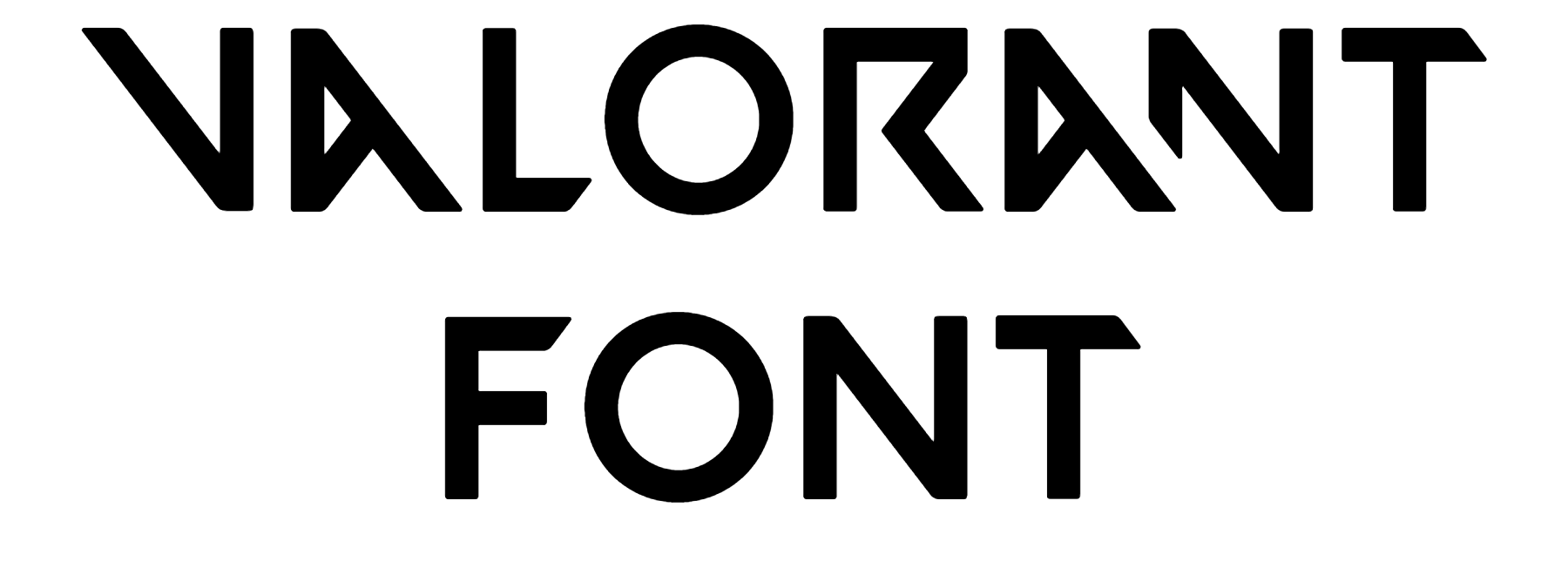
Valorant Font
Valorant
Valorant is a fancy font. It's a decorative display font with plenty of personality, made to grab attention. It's a free download, and you can try it with your own text in the preview above first.
What You Can Type With Valorant
With complete upper and lowercase letters and all ten digits, Valorant is ready for real wording, not just a single headline. Everyday marks like ! and ? are there too. There are no accented letters like é or ñ, so it's best kept to English text.
Where Valorant Works Best
Valorant is a natural fit for posters, logos and eye-catching headlines. Use it for one standout word or headline and let simpler fonts handle the rest.
Does Valorant support accented letters?
No. Valorant has no accented letters such as é, ñ or ü, so it's best for English text.